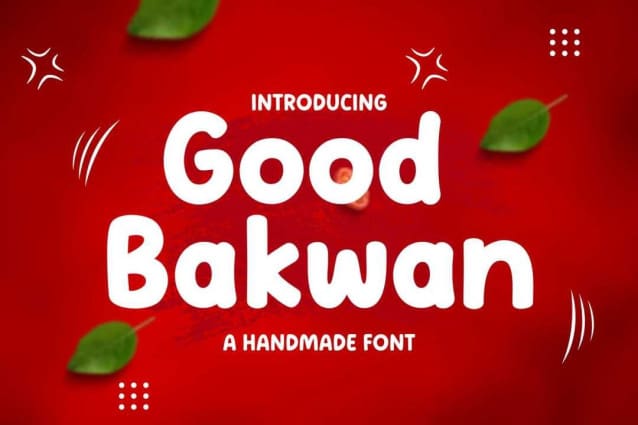
Good Bakwan Font
Good Bakwan Font, is a chunky, comic, and cartoon display font. With its neat and joyful personality, this font will enhance any project you wish to create!